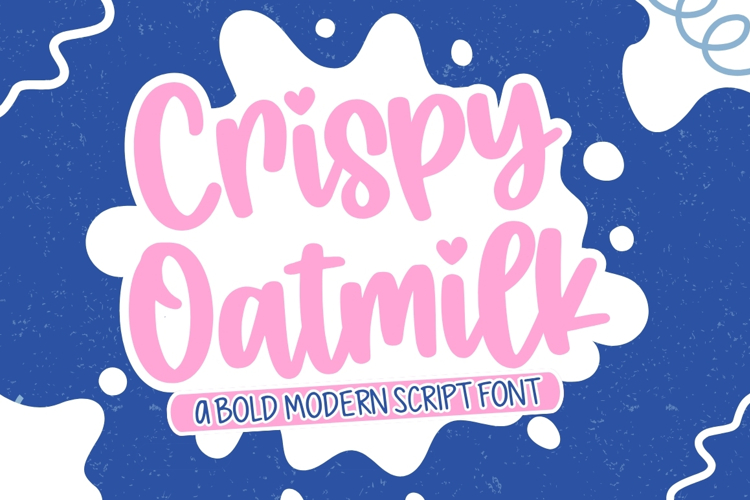
Crispy Oatmilk is a modern script font that combines effortless elegance with a fresh, stylish personality. Its smooth flowing strokes, refined curves, and expressive letterforms create a sophisticated yet approachable look, making every word feel polished and distinctive.
With its graceful rhythm and confident character, Crispy Oatmilk brings a touch of modern sophistication to every design clean, stylish, memorable, and beautifully crafted.